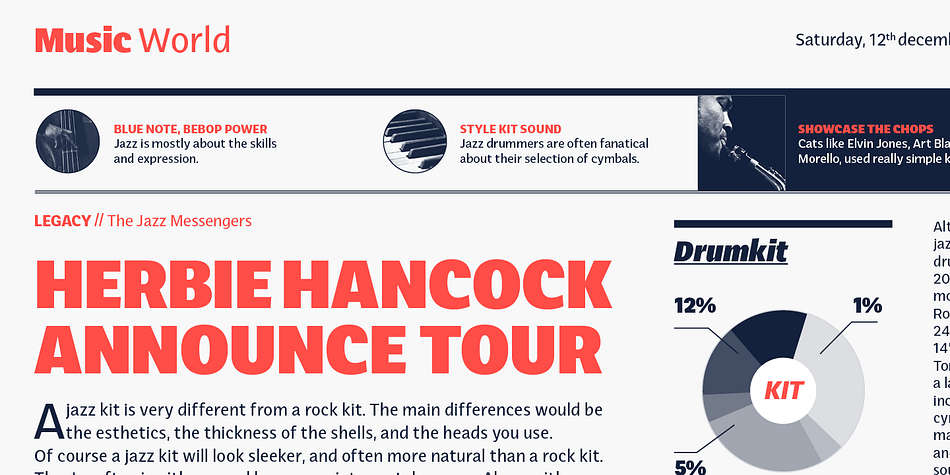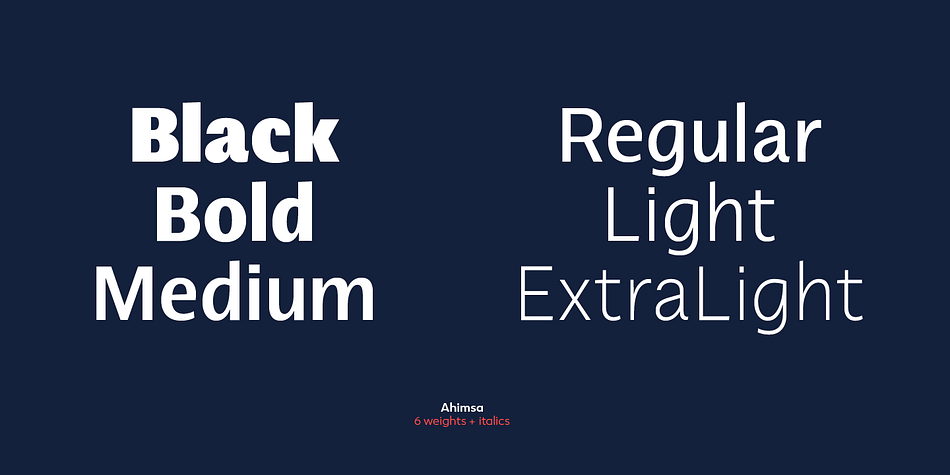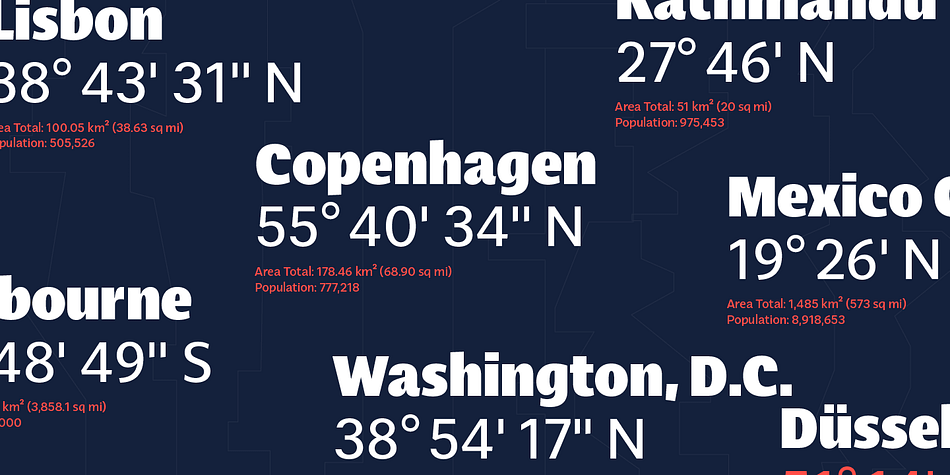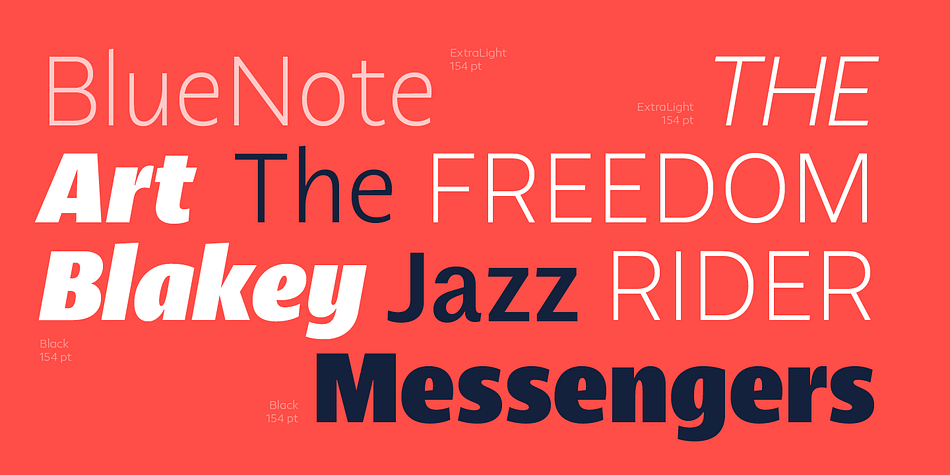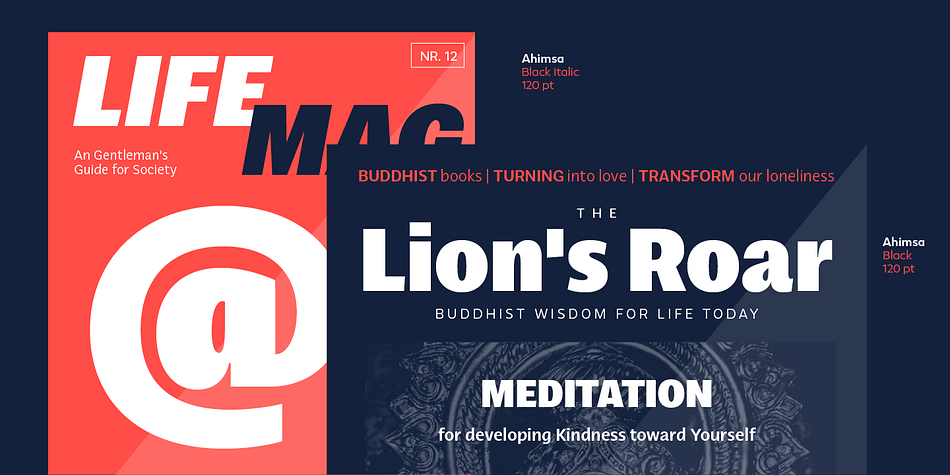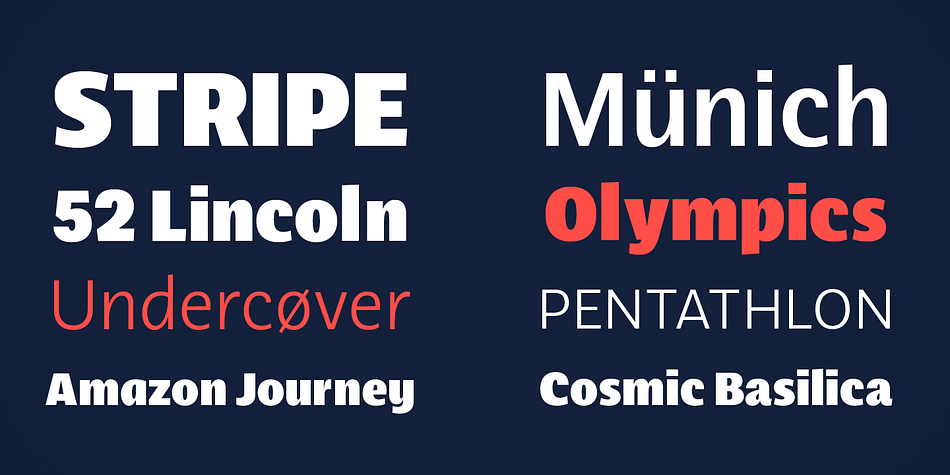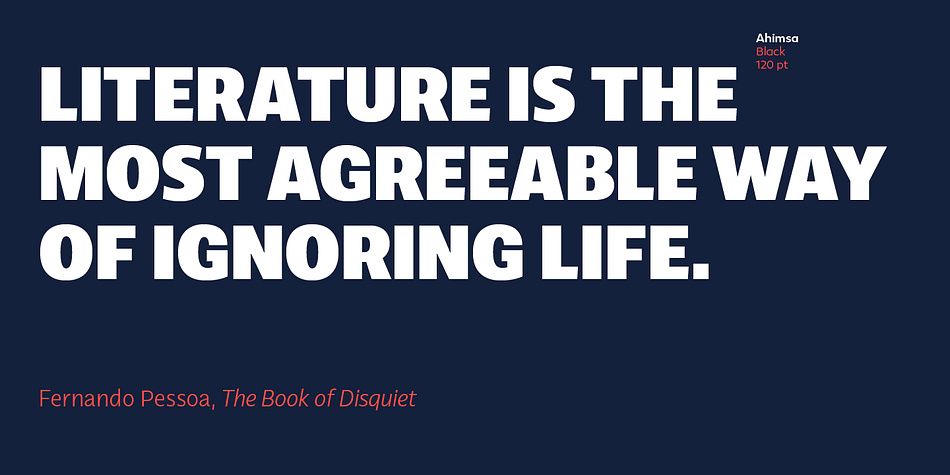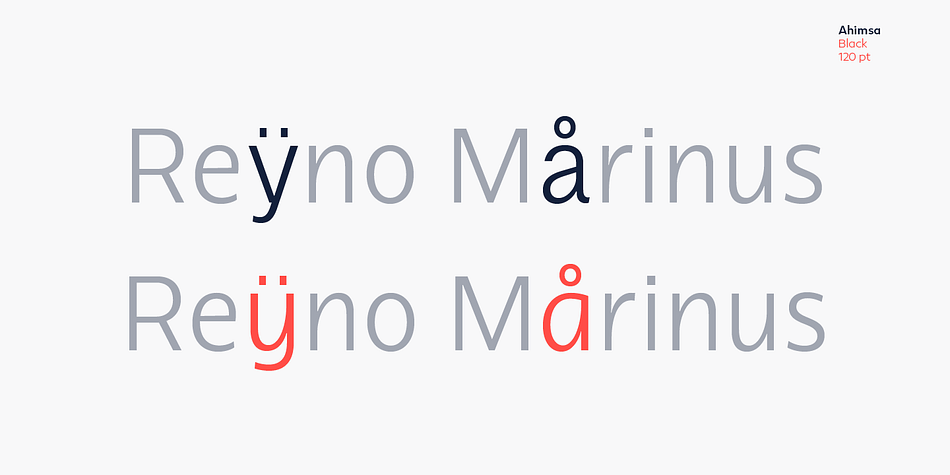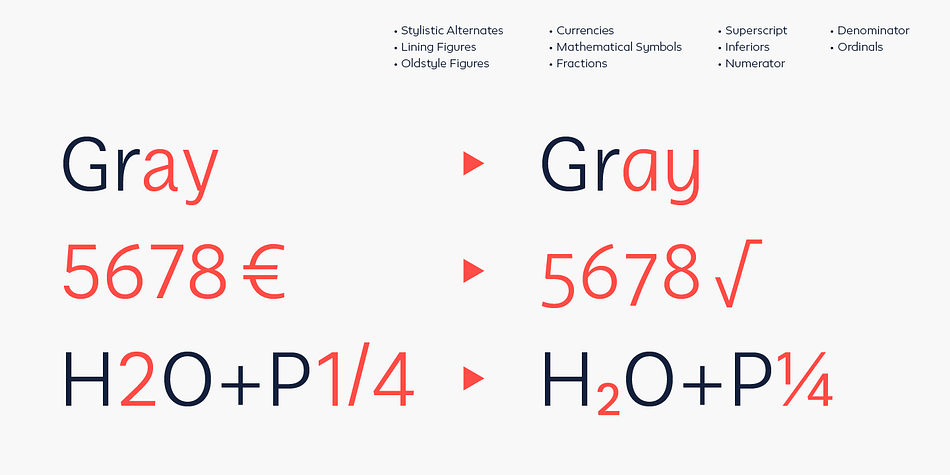
Ahimsa is a sans serif font family. This typeface has twelve styles and was published by Satori.
Ahimsa is a dynamic humanist sans serif family. It comes in 6 weights with matching italics. It contains a lot of contrast in the connection to the stems in order to give it a more dynamic feel, and also has low descenders and a large x-height and great legibility.